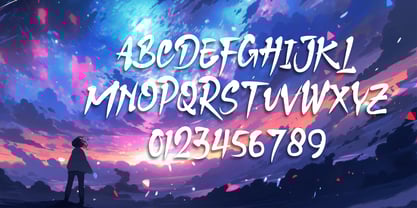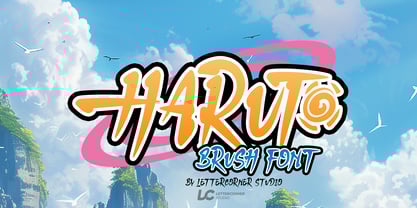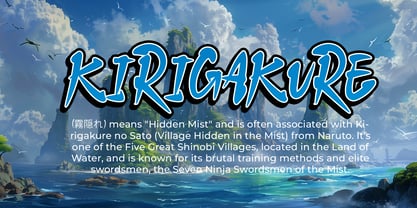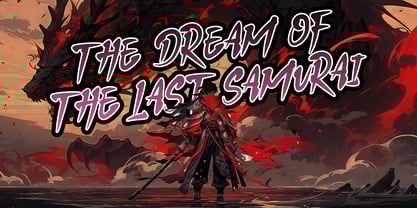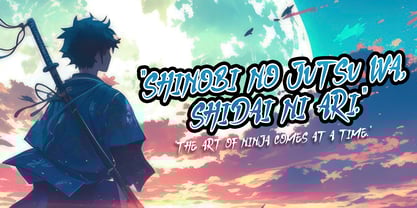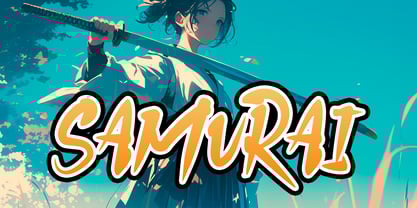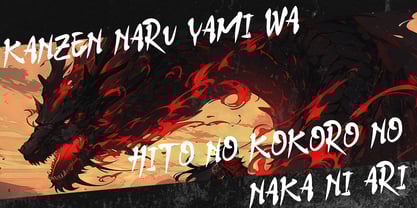
Haruto
The Haruto Font Family was designed by Muhammad Afif Ersya and published by Mevstory Studio. Haruto contains 1 styles.
A brush font inspired by the anime Naruto features a bold, dynamic, and energetic style, reflecting the world of ninjas, action, and strategy. These fonts typically have sharp, expressive brush strokes, resembling Japanese calligraphy or ink splashes, similar to those seen in jutsu techniques and ninja scrolls in the anime.
This type of font is often used in designs related to samurai, shinobi, and Japanese culture, blending traditional and modern aesthetics. This texture is very detailed. Very suitable for logos, product branding, printable templates, posters, flyers, shirts, or for text overlay to any background image. Acorn Brush font comes in All caps, with punctuation, numerals and also has multilingual support.
Features :
• All Caps / All Uppercase
• Numbers & Punctuation
• Multilingual